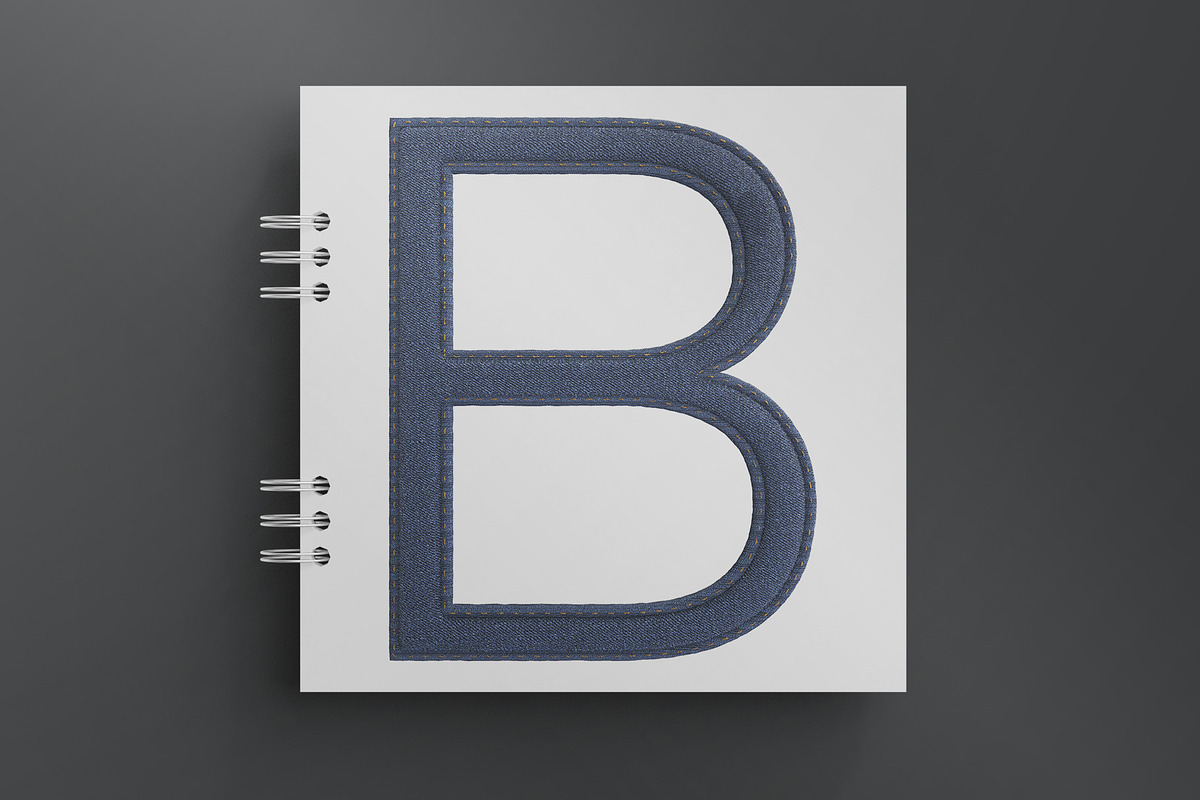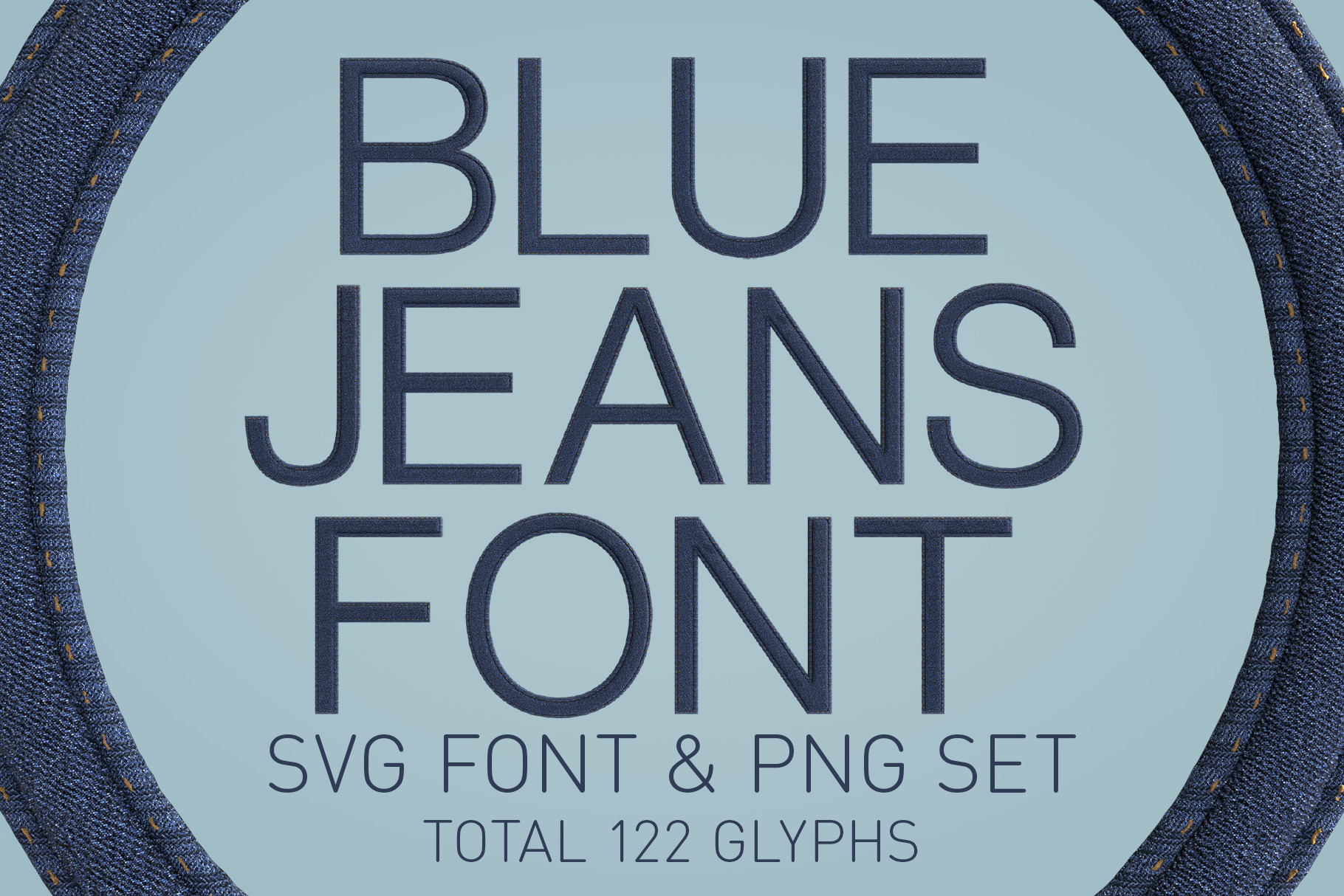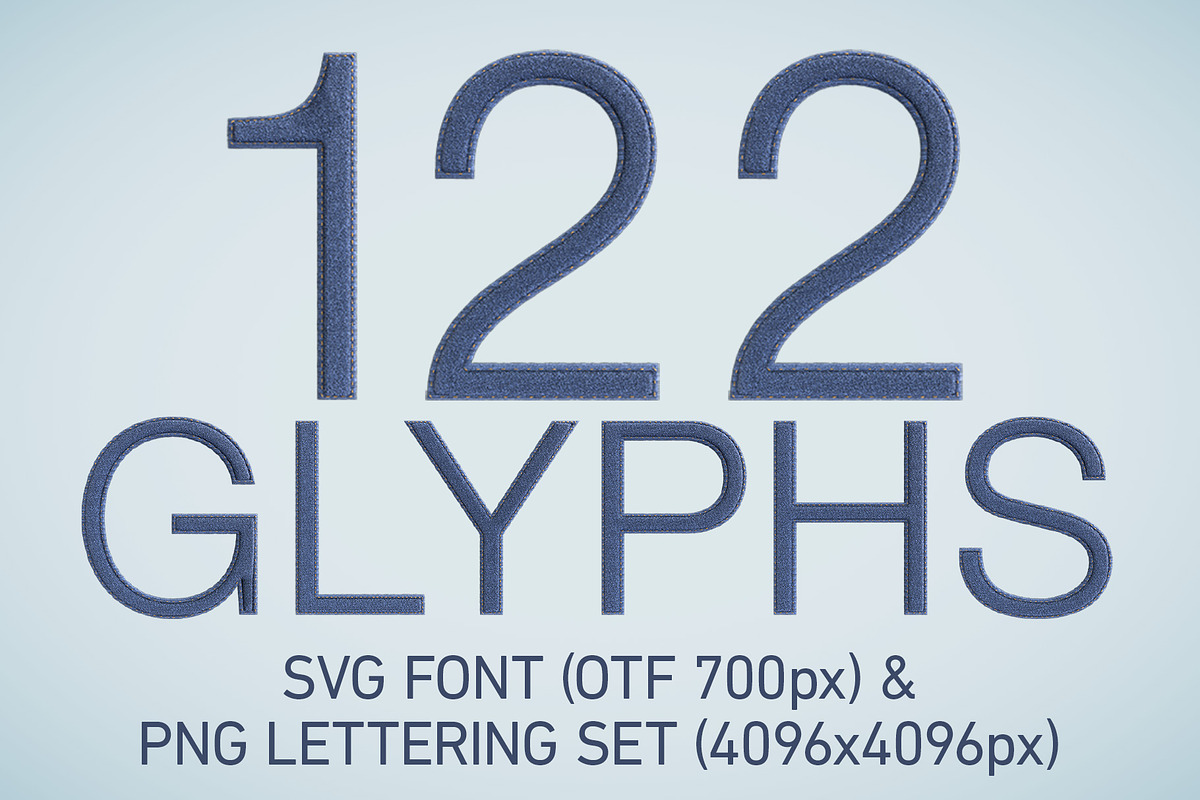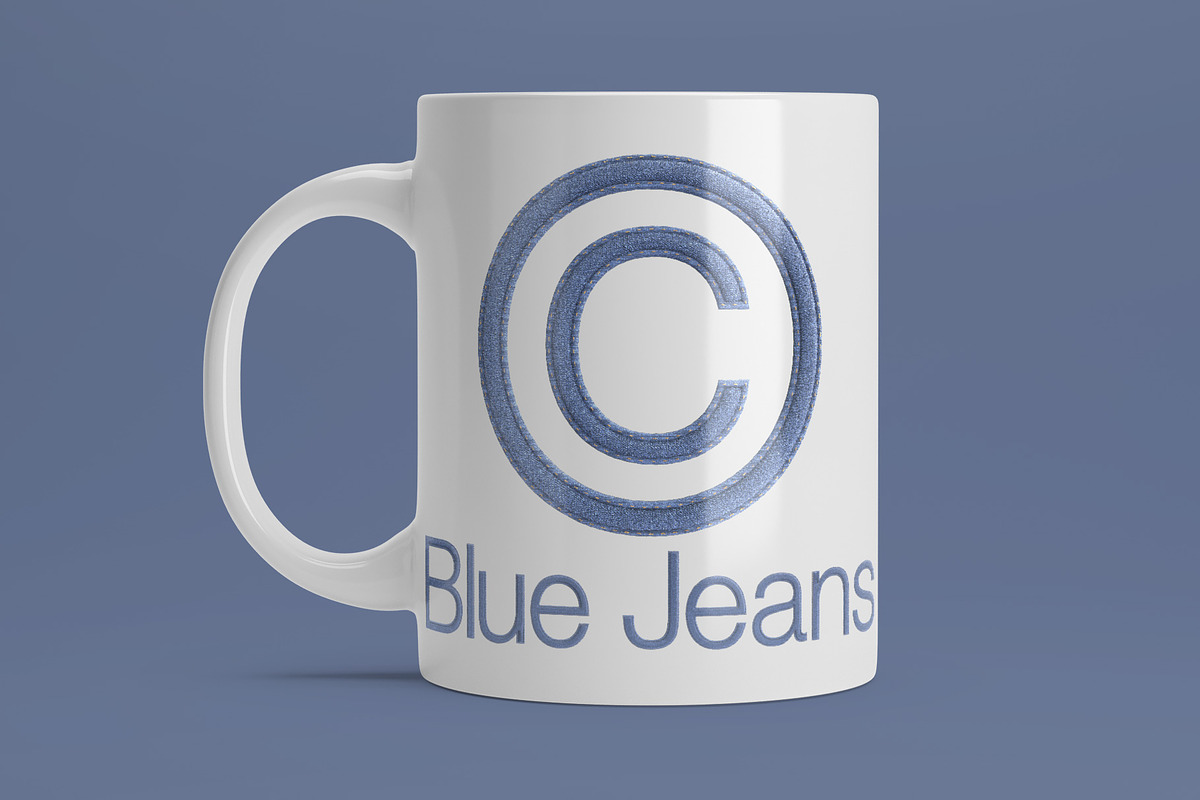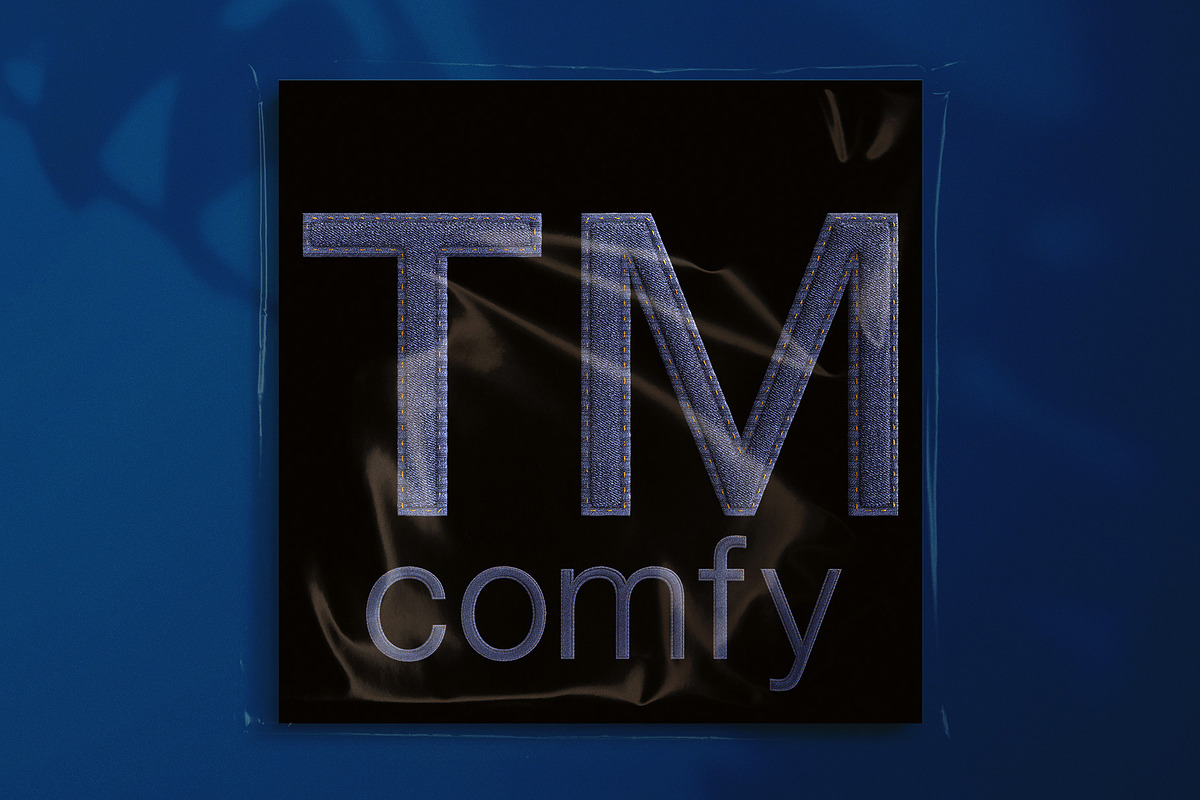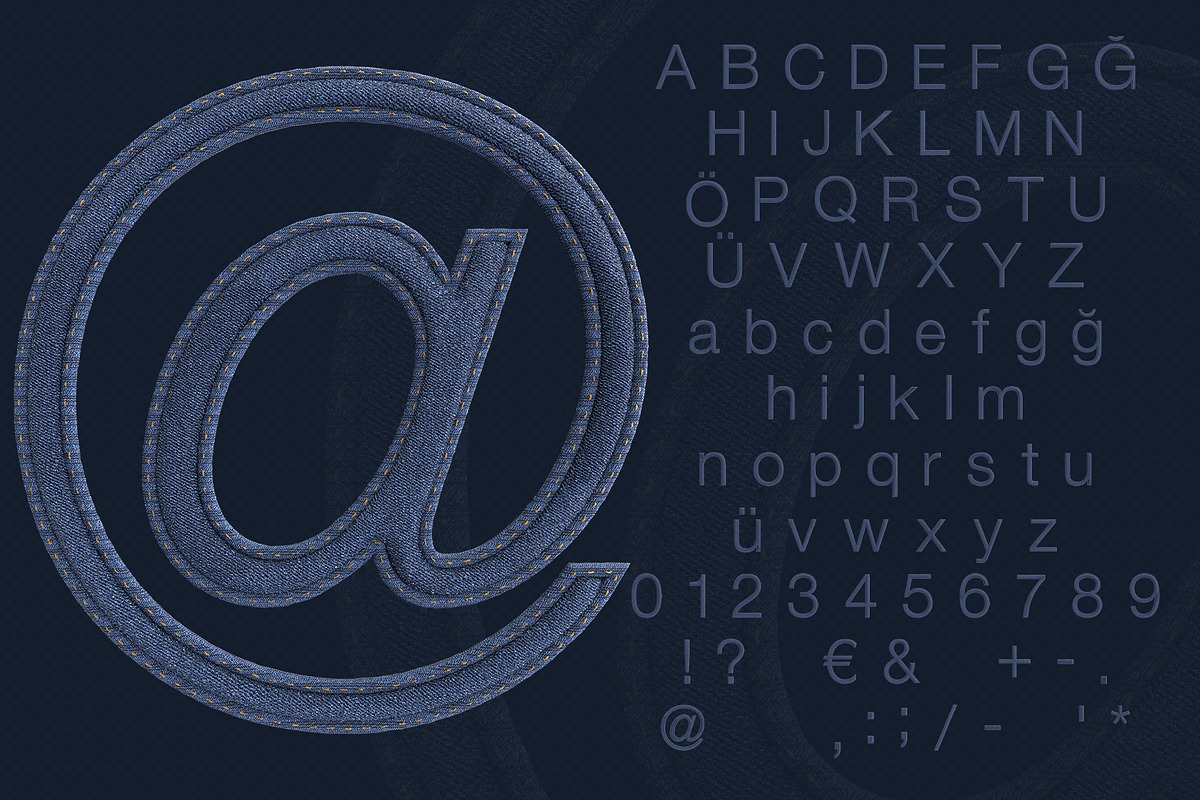
Blue Jeans Bitmap Font & PNGs
Introducing the stylish and versatile Blue Jeans Color Bitmap SVG Font and transparent PNGs, a unique and creative font that will add a touch of denim-inspired charm to your design projects. This font features 122 beautifully designed glyphs in a high-quality 4096x4096 pixel resolution transparent PNG format, providing exceptional clarity and detail.
Each glyph has been meticulously crafted with a height of up to 700 pixels, ensuring that every character is crisp and well-defined. The font is available in OpenType Format (OTF), ensuring cross-platform compatibility across a wide range of design applications.
The Blue Jeans Color Bitmap SVG Font is perfect for a variety of design projects, including fashion branding, social media graphics, product packaging, and more. Its denim-inspired design is ideal for creating a casual yet stylish look, perfect for modern design trends.
Whether you're a graphic designer, fashion brand, or simply looking to add a unique touch to your designs, the Blue Jeans Color Bitmap SVG Font is the perfect choice.